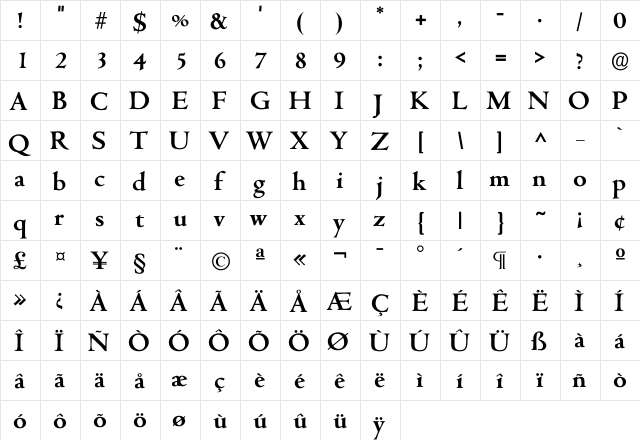
Centaur DemiBold
Design Context for Centaur Typeface
Centaur takes a measured approach to typography — its balanced proportions and neutral character make it a reliable workhorse for both digital and print work. The heavy weight commands attention and anchors typographic hierarchies.